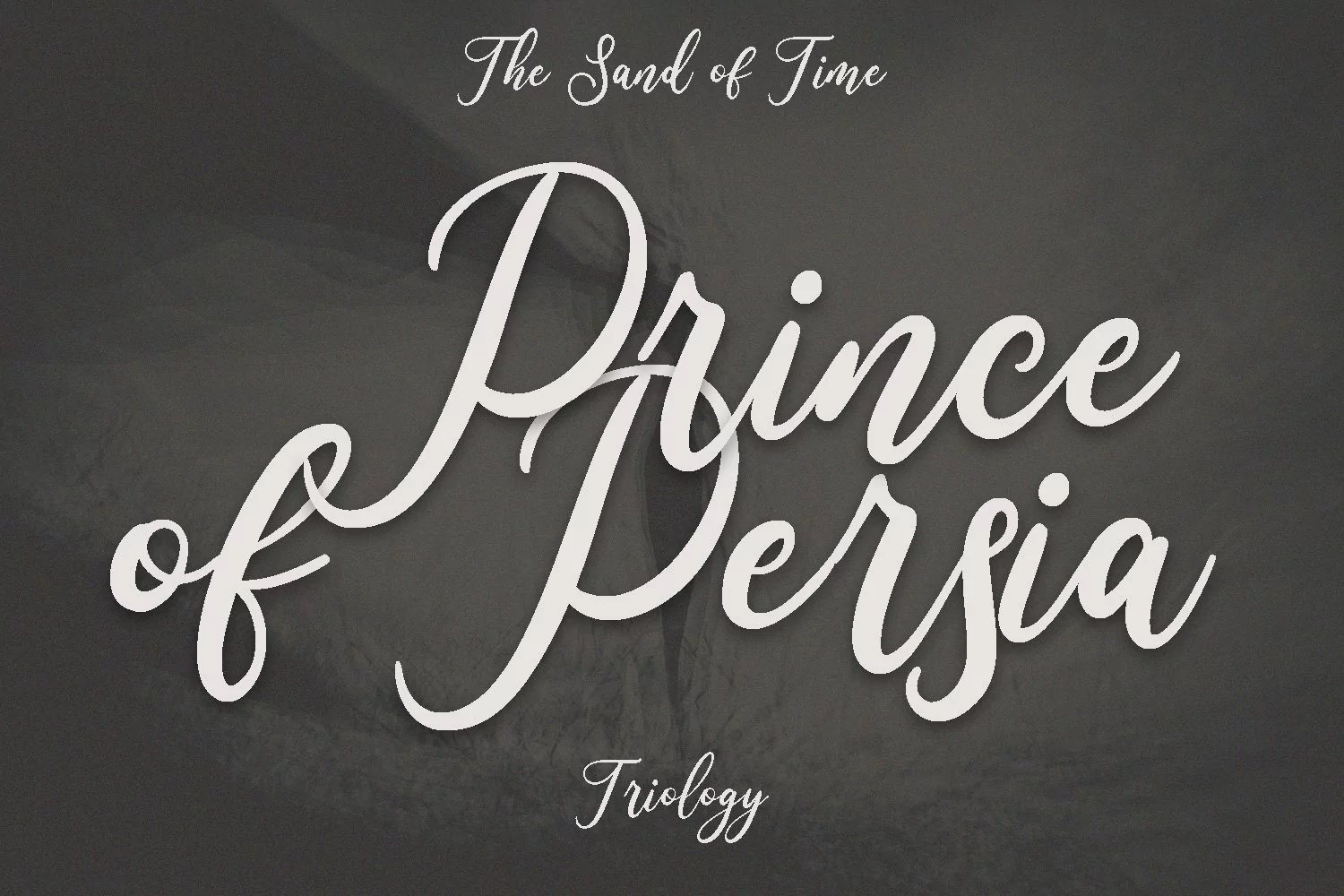
Wonder Villa is a fancy handwritten script font. With bold contrast stroke, fun character with a bit of ligatures and alternates. To give you an extra creative work. Wonder Villa font support multilingual more than 100+ language. This font is good for logo design, Social media, Movie Titles, Books Titles, a short text even a long text letter and good for your secondary text font with sans or serif. Make a stunning work with Wonder Villa font.
Wonder Villa